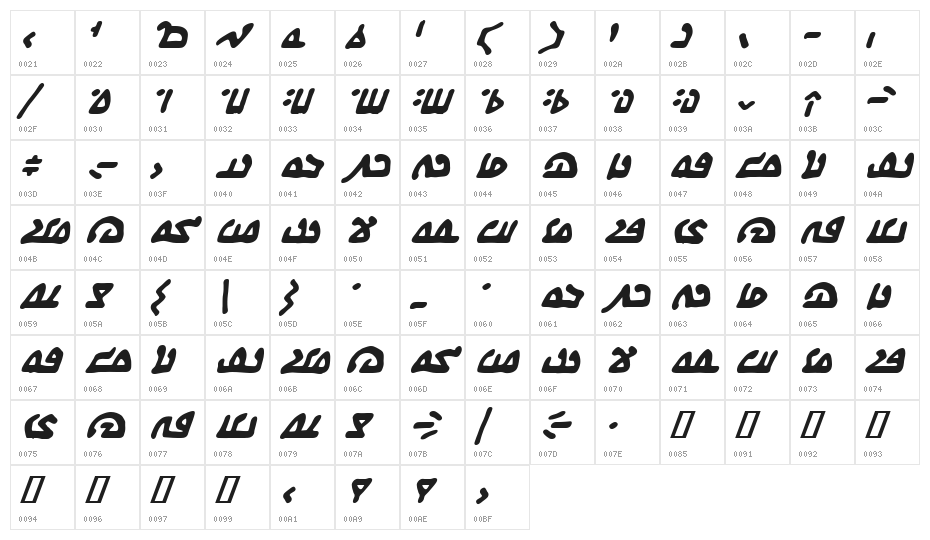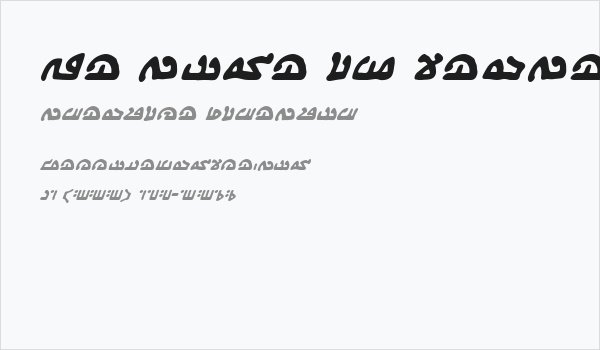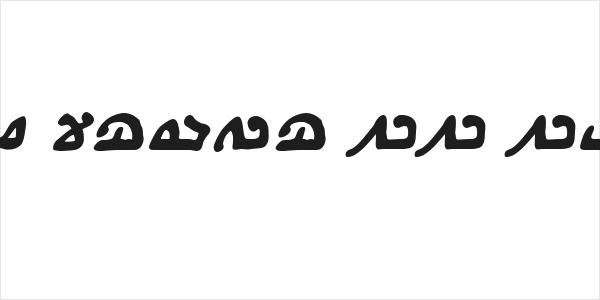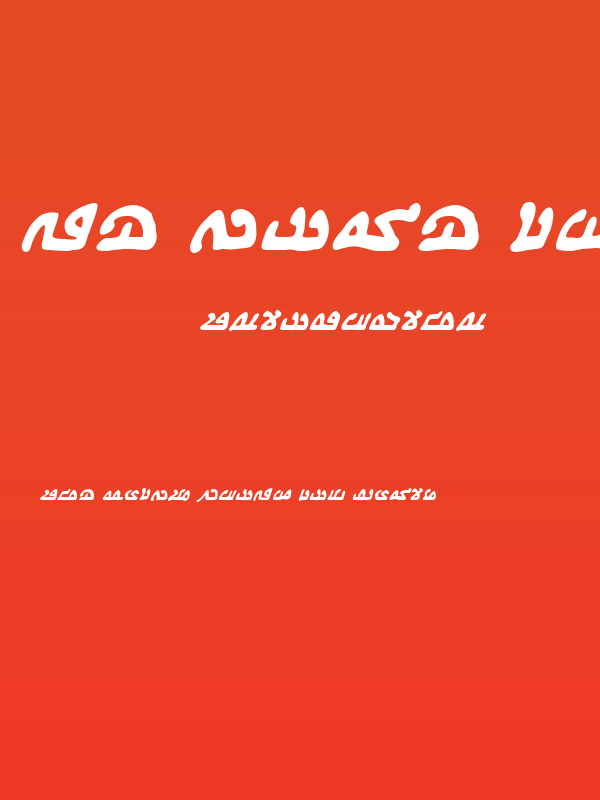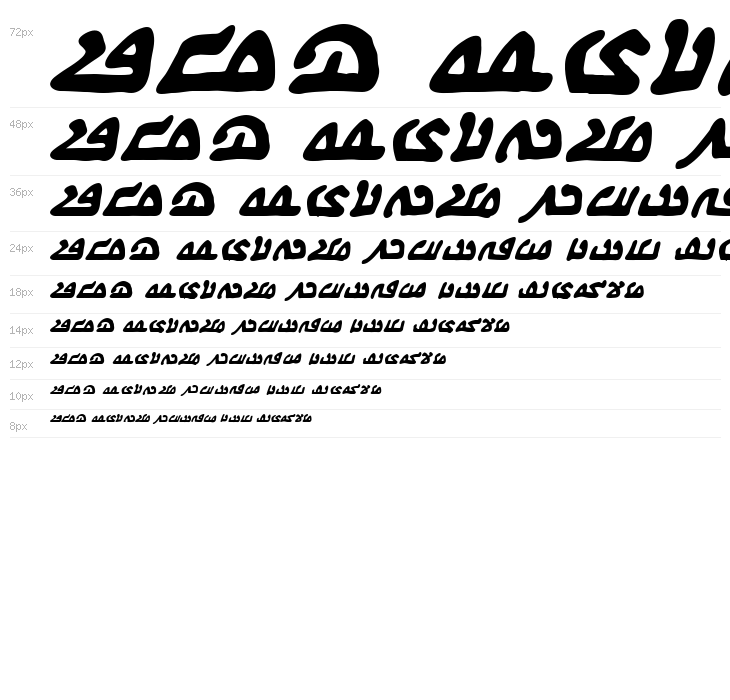
We Come In Peace BB Bold Italic Font
We Come In Peace BB Bold Italic Description
This font features a bold and italicized style with a futuristic and alien-like appearance. The characters are uniquely designed with a flowing, script-like quality that gives them a sense of movement and dynamism. The strokes are thick and consistent, providing a strong visual impact. The overall design is highly decorative, making it suitable for creative and themed projects. The characters are well-spaced, ensuring readability despite their intricate design.
| Overall Style | Futuristic, Decorative |
| Proposed Projects | Ideal for sci-fi themed projects, video game titles, movie posters, or any creative work requiring a unique and eye-catching typeface. |